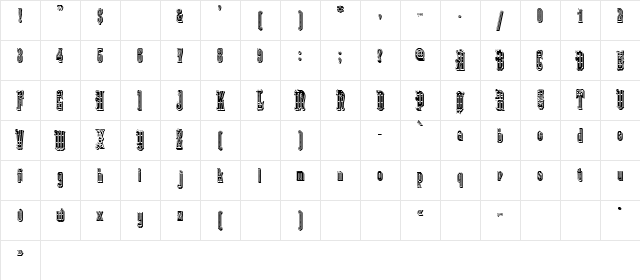
Kabriolet Decor Line Regular
Foundry: Gophmann A.L.
Designer: Gophmann A.L.
Design Context for Kabriolet Decor Line
Kabriolet Decor Line is a composed and adaptable typeface that performs quietly and consistently across a wide range of design contexts.